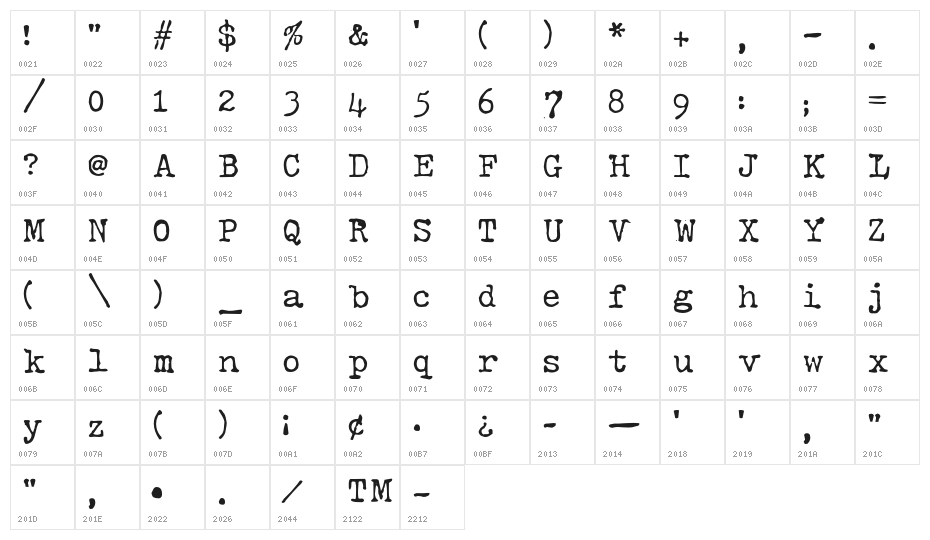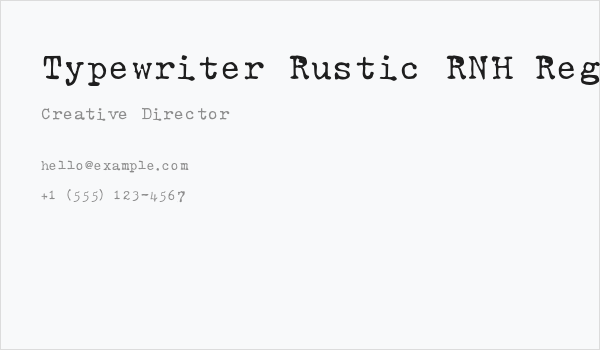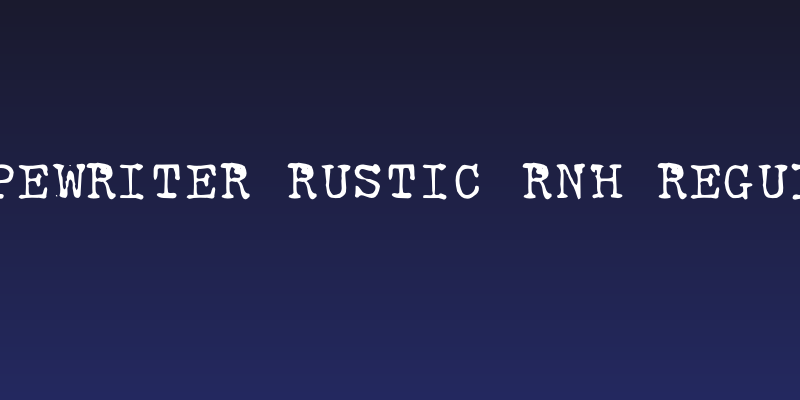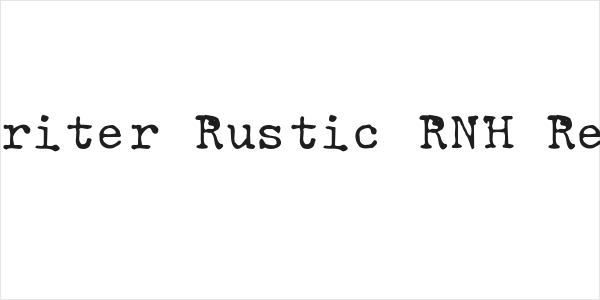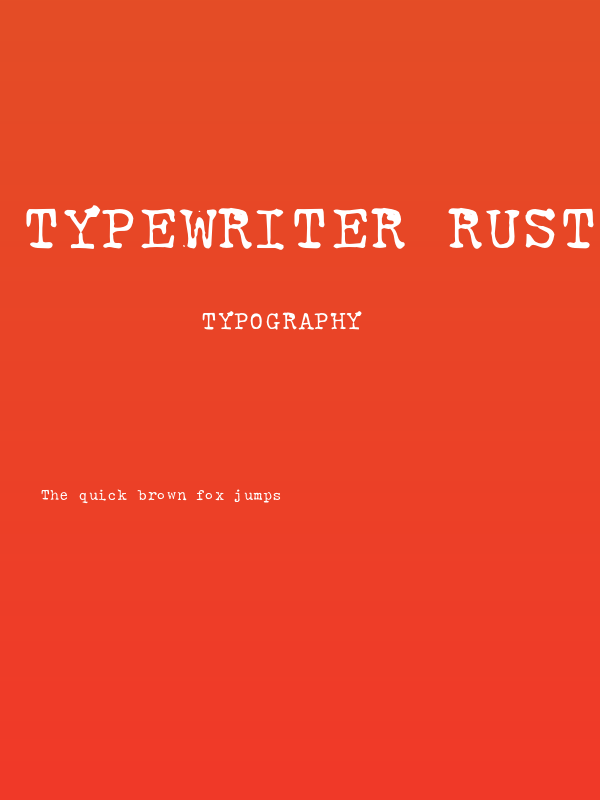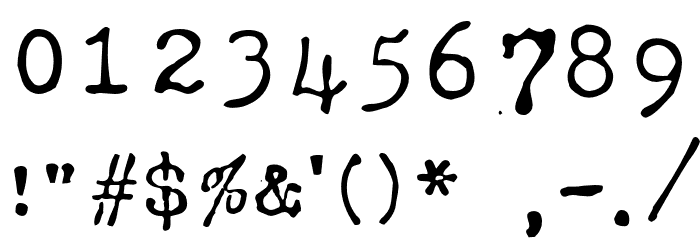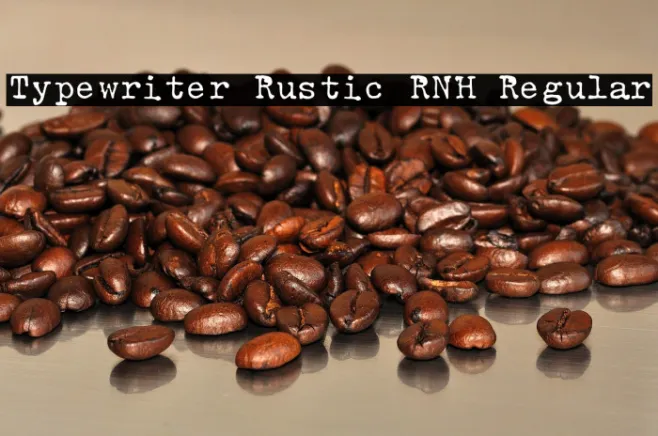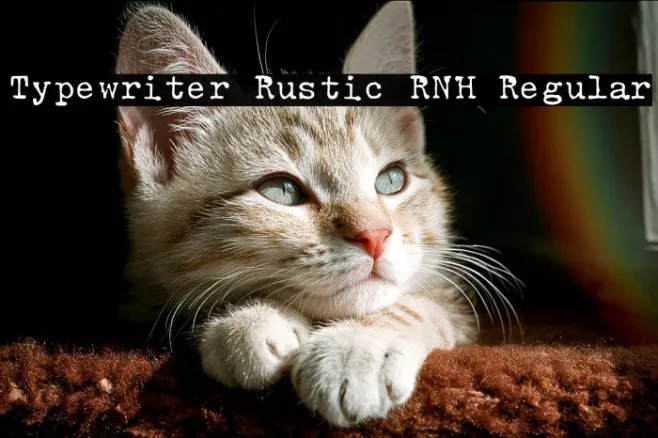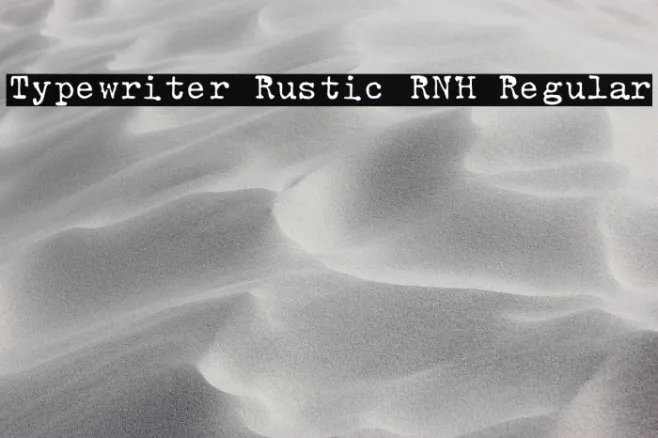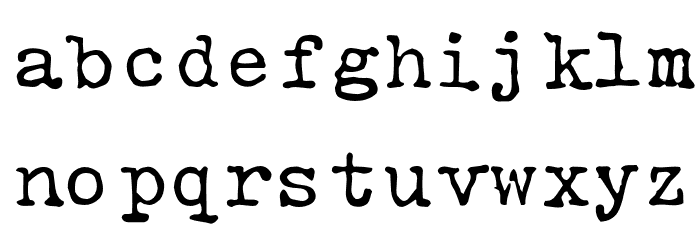
Typewriter Rustic RNH Regular Font
Typewriter Rustic RNH Regular Description
This font embodies a rustic, vintage typewriter aesthetic, characterized by its uneven and slightly distressed letterforms. The characters exhibit a hand-crafted feel, with irregular edges and varying stroke widths that evoke the charm of old mechanical typewriters. The uppercase and lowercase letters maintain a consistent style, with a slightly condensed appearance that enhances its retro appeal. Numbers and special characters follow the same design ethos, providing a cohesive look across all glyphs. This font's unique texture and personality make it stand out, offering a nostalgic yet timeless quality.
| Use Case | Headlines, Logos, Decorative text |
| Proposed Projects | Ideal for projects that require a vintage or retro feel, such as posters, invitations, branding for artisanal products, or any design that seeks to evoke nostalgia. |